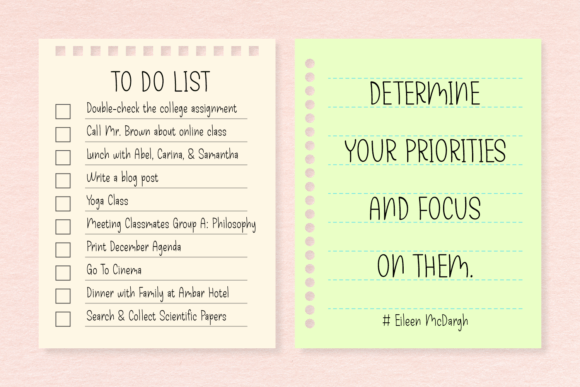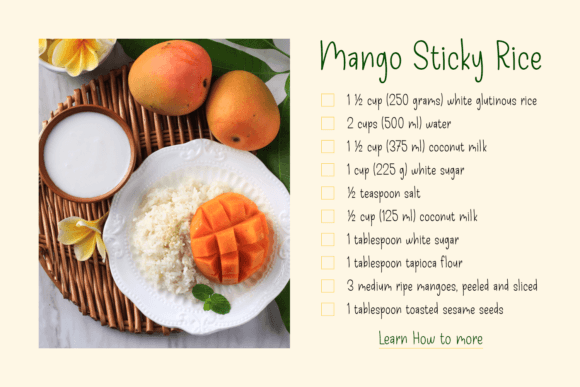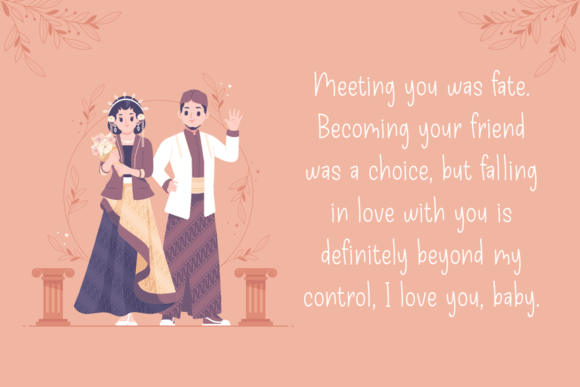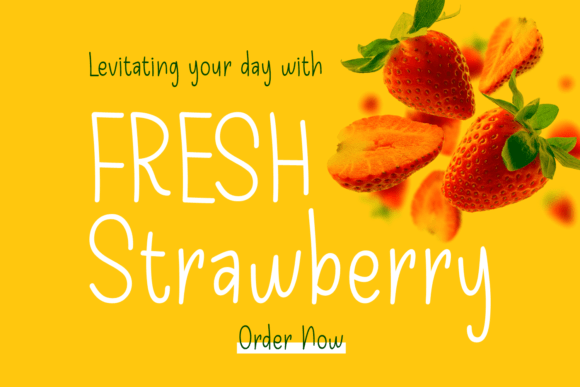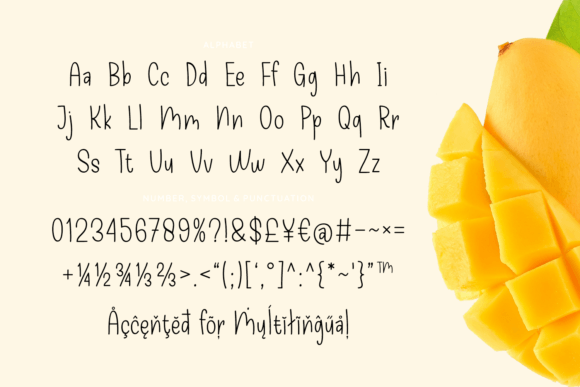
Introducing Delicious Mango Font: The Perfect Addition to Your Design Arsenal
Are you tired of using the same old fonts for your projects? Look no further! Delicious Mango Font is a cute and casual handwritten font that’s sure to capture your heart. With its incredibly distinct and timeless style, this font is perfect for designers and crafters looking to add a touch of personality to their work.
What Makes Delicious Mango Font So Special?
Delicious Mango Font is a unique and charming font that’s designed to make your projects stand out. Its casual and handwritten style gives it a friendly and approachable feel, making it perfect for a wide range of applications. Whether you’re working on a branding project, a social media graphic, or a craft project, Delicious Mango Font is sure to add a touch of whimsy and charm.
Key Features of Delicious Mango Font
- Cute and Casual Design: Delicious Mango Font has a playful and informal design that’s perfect for creating friendly and approachable designs.
- Incredibly Distinct Style: This font has a unique and recognizable style that’s sure to make your projects stand out.
- Timeless Appeal: Unlike trendy fonts that quickly go out of style, Delicious Mango Font has a timeless appeal that will keep your designs looking fresh for years to come.
- Perfect for a Wide Range of Projects: Whether you’re working on a branding project, a social media graphic, or a craft project, Delicious Mango Font is a versatile font that can be used for a wide range of applications.
How to Use Delicious Mango Font in Your Projects
Delicious Mango Font is easy to use and can be incorporated into a wide range of projects. Here are a few ideas to get you started:
- Branding and Logo Design: Use Delicious Mango Font to create a unique and memorable logo for your brand.
- Social Media Graphics: Add a touch of personality to your social media graphics with Delicious Mango Font.
- Craft Projects: Use Delicious Mango Font to add a personal touch to your craft projects, such as handmade cards and gift tags.
- Digital Art: Incorporate Delicious Mango Font into your digital art projects, such as illustrations and graphics.
Why Designers and Crafters Love Delicious Mango Font
Designers and crafters love Delicious Mango Font for its unique and charming design. Here are a few reasons why:
- Easy to Read: Delicious Mango Font is easy to read, even at small sizes.
- Versatile: This font can be used for a wide range of projects, from branding and logo design to craft projects and digital art.
- Unique Style: Delicious Mango Font has a unique and recognizable style that’s sure to make your projects stand out.
In conclusion, Delicious Mango Font is a cute and casual handwritten font that’s perfect for designers and crafters looking to add a touch of personality to their work. With its incredibly distinct and timeless style, this font is sure to capture your heart and become a staple in your design arsenal. So why wait? Try Delicious Mango Font today and see the difference it can make in your designs!